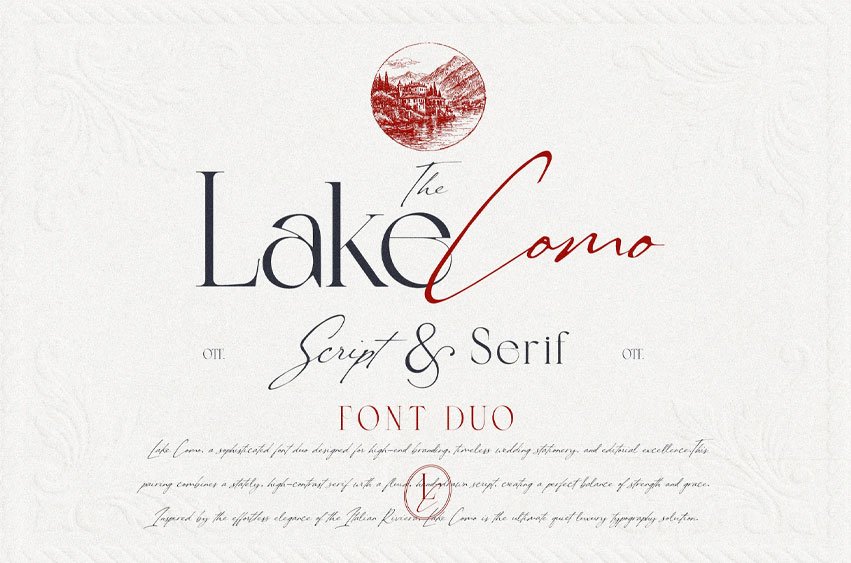
Lake Como Font is a sophisticated typography pairing designed for those who seek “quiet luxury.” It features a stately, high-contrast serif that commands attention with its strength, perfectly balanced by a fluid, hand-drawn script that adds a touch of effortless grace & elegance.
Whether you are designing a high-end luxury brand identity or timeless wedding stationery, this duo provides a professional, editorial look that feels both modern and heritage-inspired.
Perfect Use Cases:
- Luxury Wedding Stationery (Save the Dates & Formal Invitations, Place Cards & Seating Charts, Vow Books & Menus)
- High-End Branding & Logos (Give your business an “expensive” feel. The high-contrast serif is perfect for fashion boutiques, interior designers, photographers, and luxury real estate agents.)
- Editorial & Magazine Layouts ( Lookbooks for jewelry or apparel brands, Elegant book covers).
- Social Media Content (“Quiet Luxury” aesthetic quotes, Pinterest-style mood boards, and Elegant Reels overlays for lifestyle influencers.)
- Product Packaging (If you sell candles, skincare, or artisanal goods, this font duo communicates quality and craftsmanship. It looks stunning on: (Minimalist wine or perfume labels, skincare jars and boxes, thank you cards for boutique orders.)